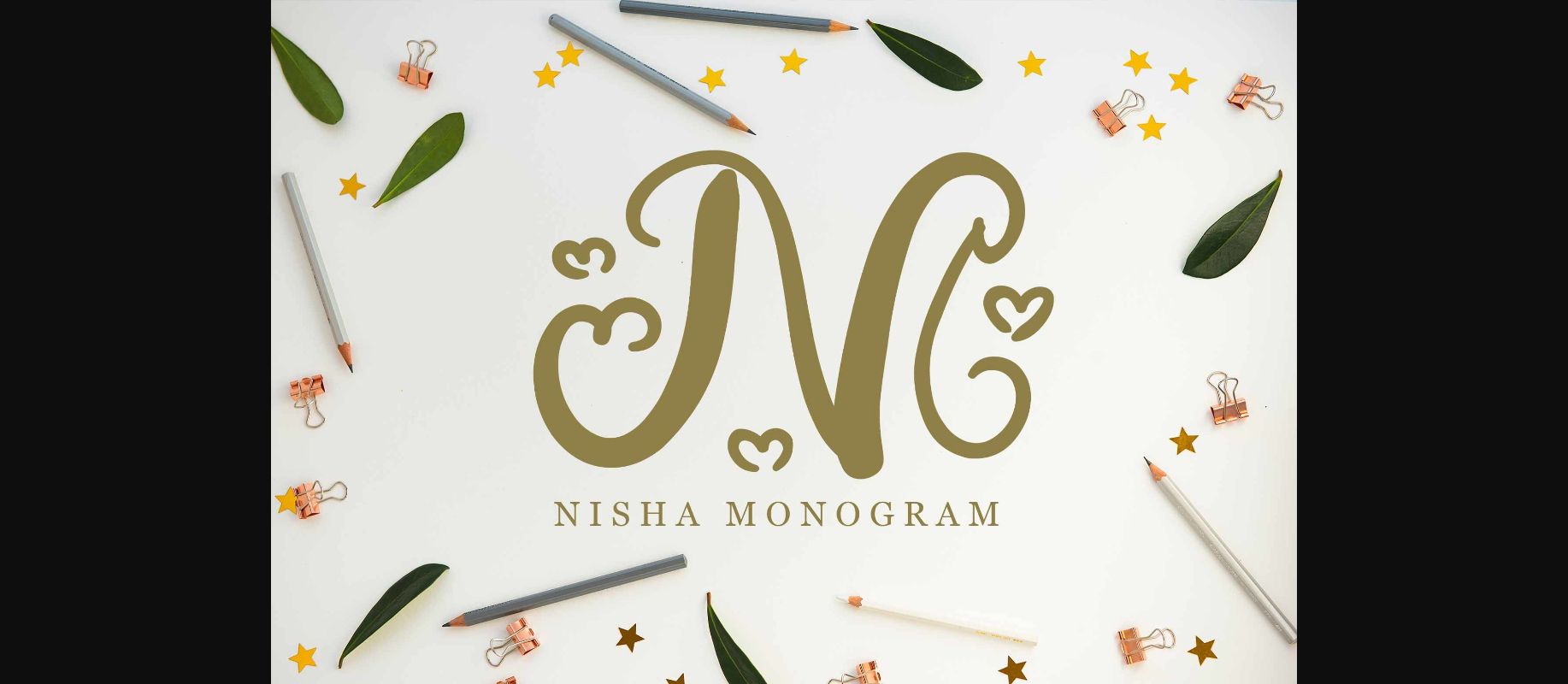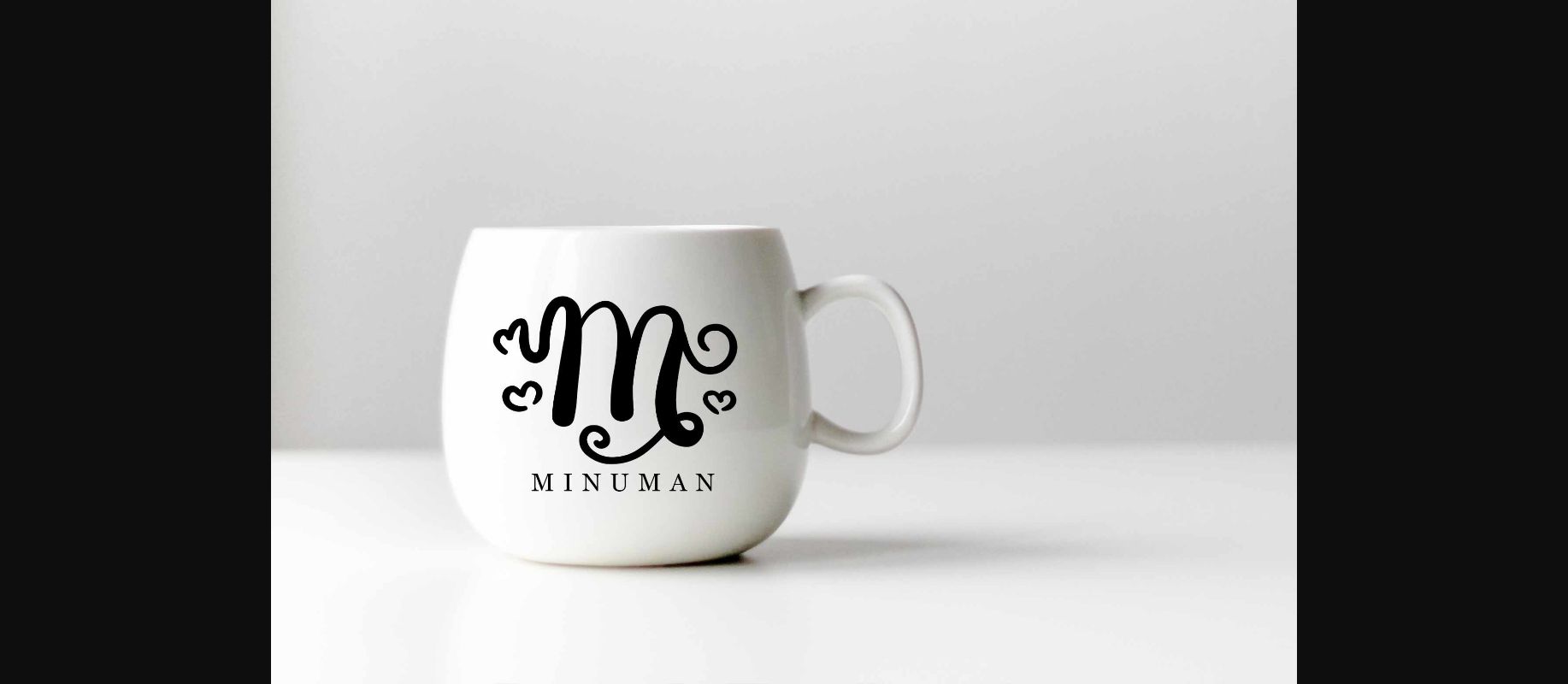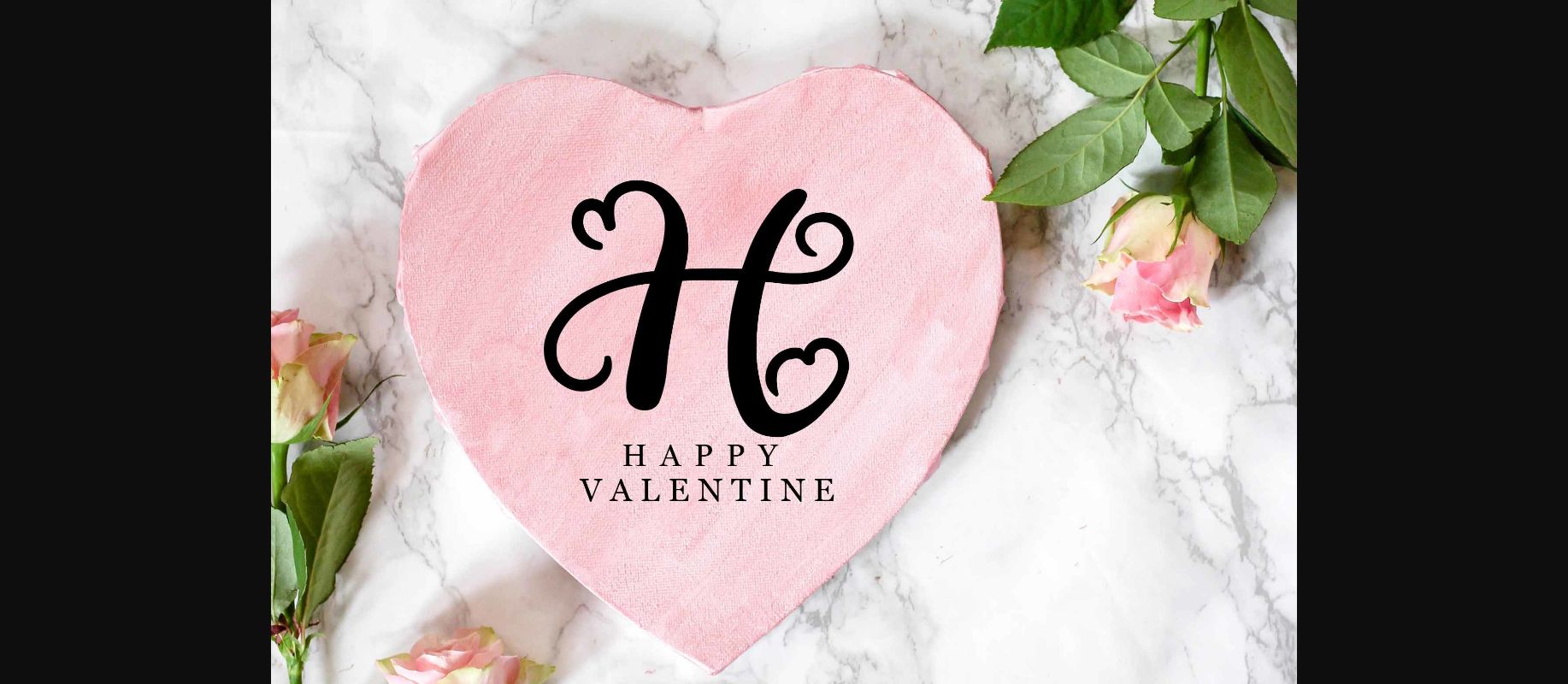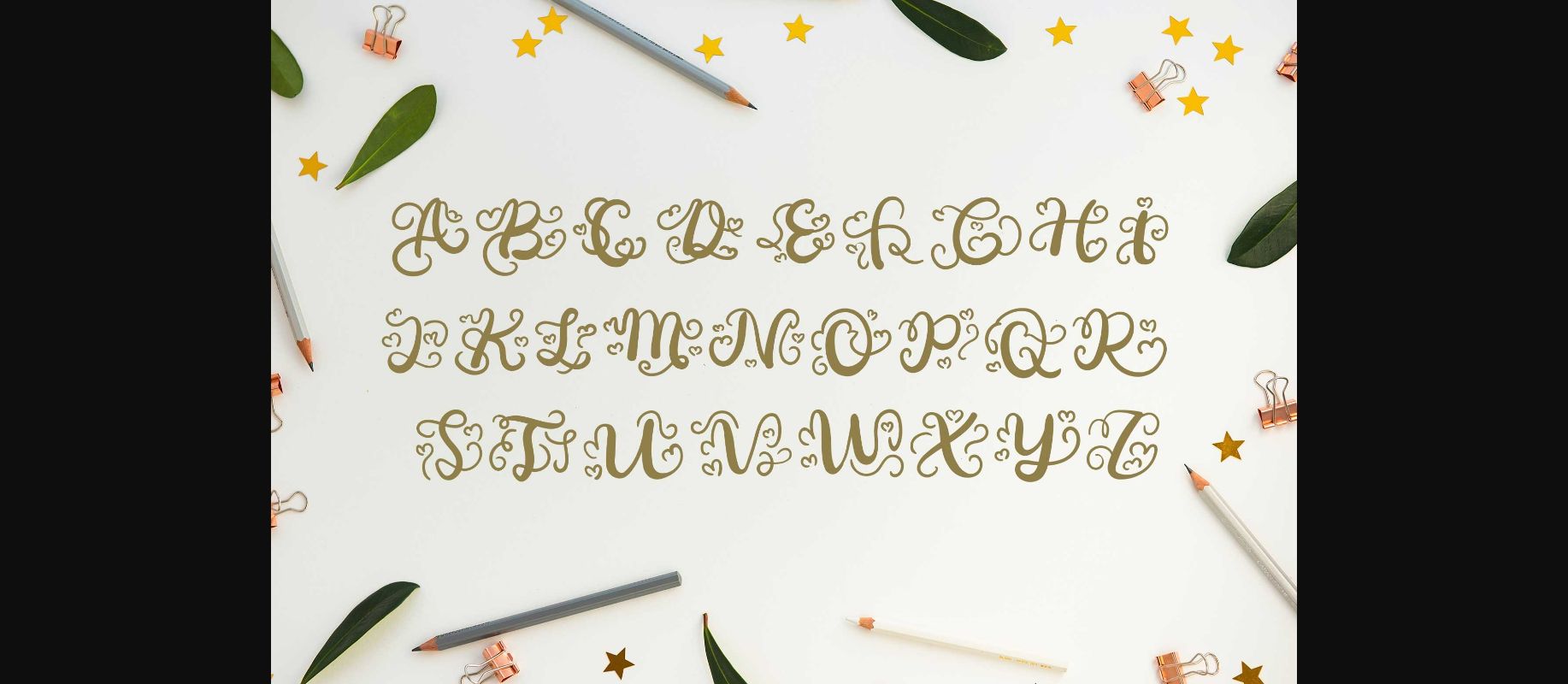
About Nisha Monogram Font
Nisha Monogram is a simple and romantic decorative font. Get this font right away and use it for logos, branding, invitations, stationery, wedding designs, social media posts, advertisements, product packaging, labels, watermarks, Valentine’s Day or anything else.